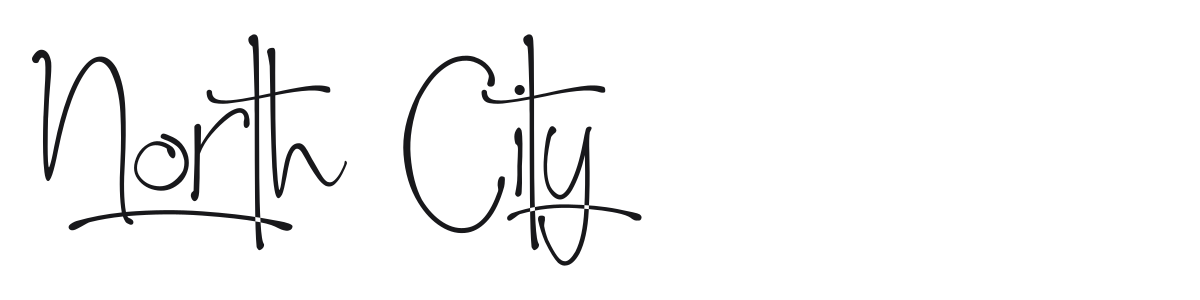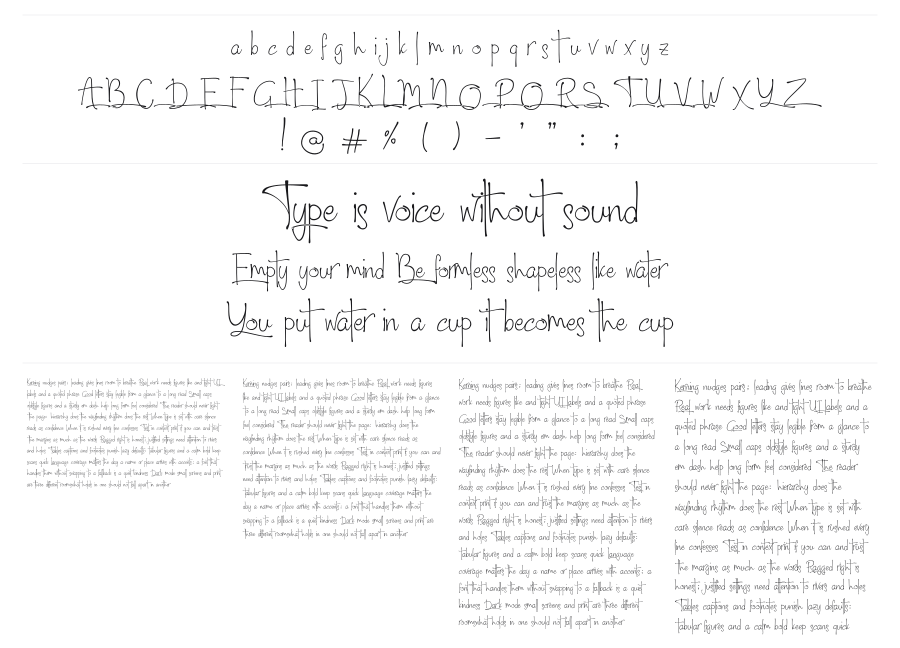
North City
North City is a casual handwritten script from Typeline Studio with a light, pen-drawn quality and naturally uneven rhythm. Long looping ascenders and descenders give it an expressive, free-flowing feel that reads as genuinely hand-lettered rather than mechanical. It suits branding and display contexts where a personal, human touch is the point.